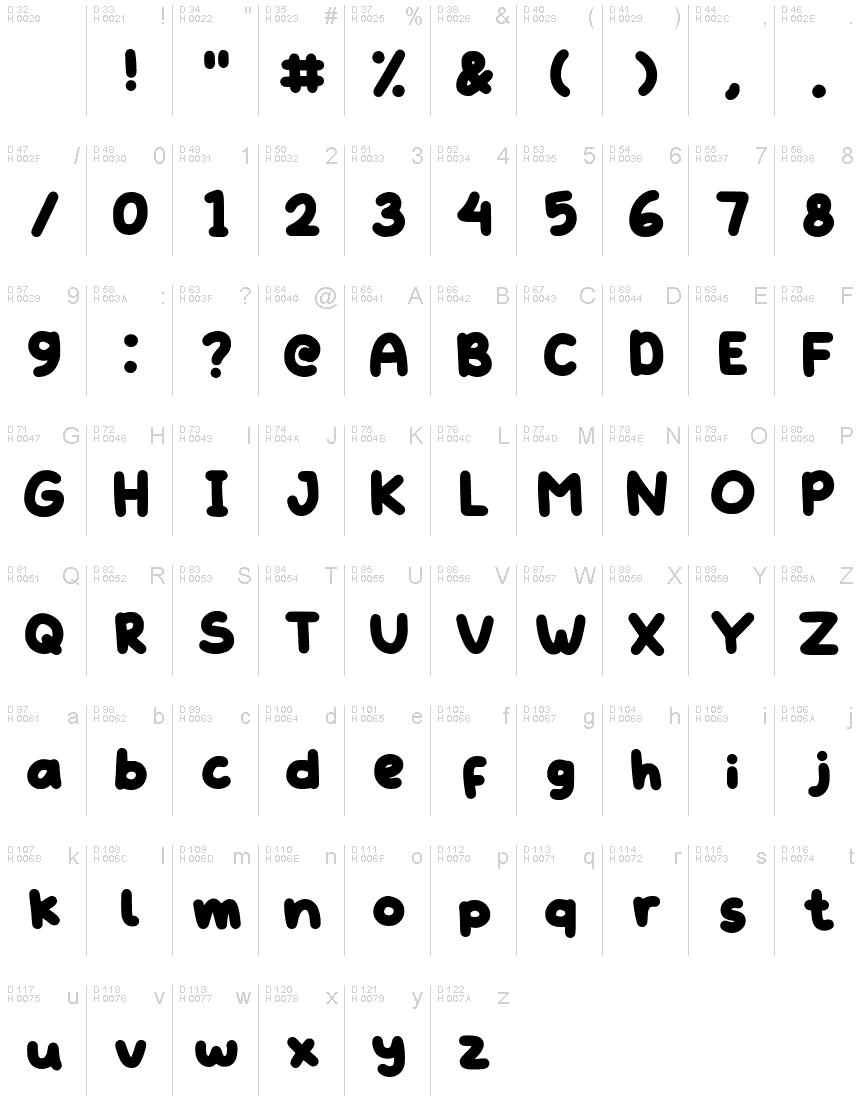
Bible Regular
Introducing Bible, a bold and beautiful handwritten font by designer Mikaila Delianne. Perfect for creating eye-catching posters, logos, and greeting cards with a personal touch. Bible also makes a great choice for designing quotes and scripture-inspired artwork.